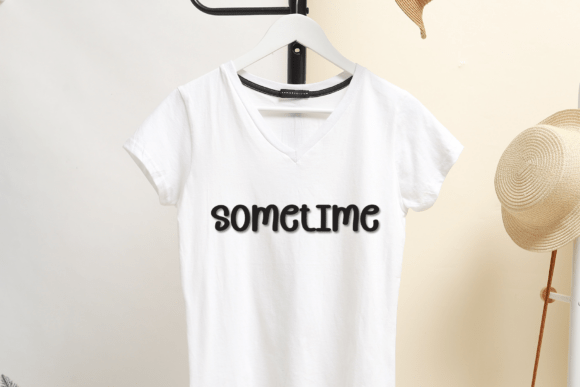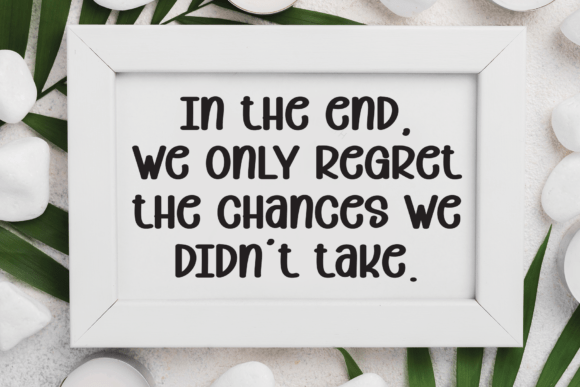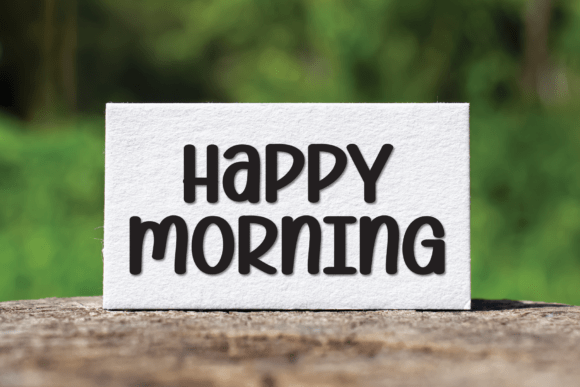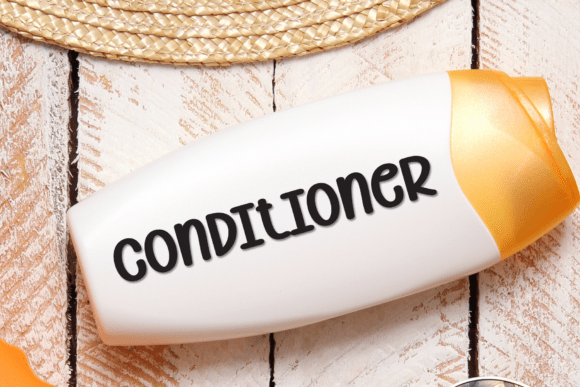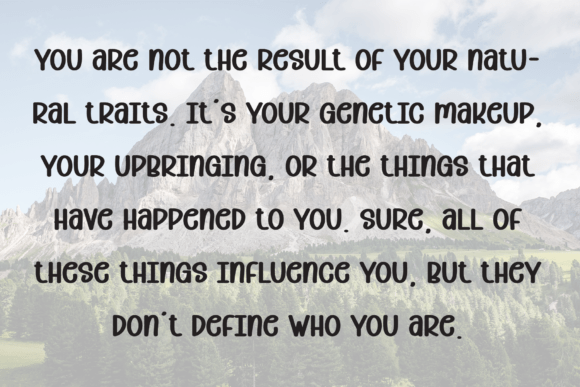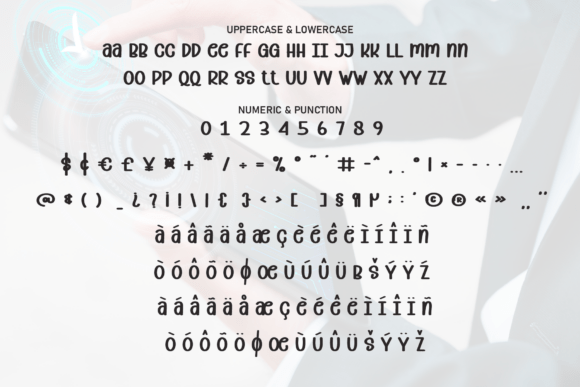
Introduction to Smart Change Font
Have you ever found yourself staring at a blank page, trying to come up with the perfect font to match your brand’s personality? We’ve all been there. As designers, we’re constantly on the lookout for that elusive font that screams “us” without saying a word. And that’s where the Smart Change Font comes in – a game-changing design resource that’s about to revolutionize your creative projects.
With its clean lines, balanced letterforms, and subtle rounded edges, the Smart Change Font is the perfect blend of simplicity and sophistication. Whether you’re working on a branding project, crafting a headline, or designing packaging, this font adds a warm and inviting touch that’s sure to leave a lasting impression. Plus, with its high-quality structure and versatile style, you can rest assured that your design will shine with clarity and charm.
Key Features of Smart Change Font
- High-quality font design with a transparent background, making it easy to use in creative projects.
- Optimized for high-resolution displays, ensuring the font looks sharp and clear at resolutions up to 300 DPI.
Honest Review: Smart Change Font
I recently had the chance to work with the Smart Change Font, and I must say, it’s a solid addition to any design resource collection. The high quality of the font is immediately apparent, making it perfect for creative projects that require a touch of sophistication.
- ✨ The font’s transparent background makes it incredibly versatile and easy to use, allowing for seamless integration into any design.
- ✨ The high quality of the font ensures that it will always look great, even when scaled up or down.
- ⚠️ The font may not be suitable for projects that require a lot of customization, as it’s primarily designed for general use.
- ⚠️ The font’s range of styles and weights is somewhat limited, which may not be ideal for designers who prefer a wider range of options.
Overall, I’m impressed with the Smart Change Font. It’s a reliable, high-quality font that’s perfect for a wide range of creative projects. While it may not be the most customizable font, its transparent background and high quality make it an excellent choice for designers who want a solid, professional look without breaking the bank.
Smart Change Font
Smart Change Font is a versatile design resource that offers high-quality fonts for creative projects. With a transparent background, this font is easy to use and customize in various design applications.
Tips for Getting the Most Out of Smart Change Font
For the best results, use Smart Change Font on a high-quality design project. Experiment with different font sizes, colors, and styles to create a unique look.
Smart Change Font is perfect for creative projects such as:
- Posters
- Websites
Is Smart Change Font suitable for high-resolution designs?
Yes, Smart Change Font is designed to be high-quality and suitable for high-resolution designs. The font features a transparent background, making it perfect for designs with complex backgrounds or layering. Additionally, the font is optimized for use at large sizes, ensuring that it remains clear and legible even in high-resolution designs.